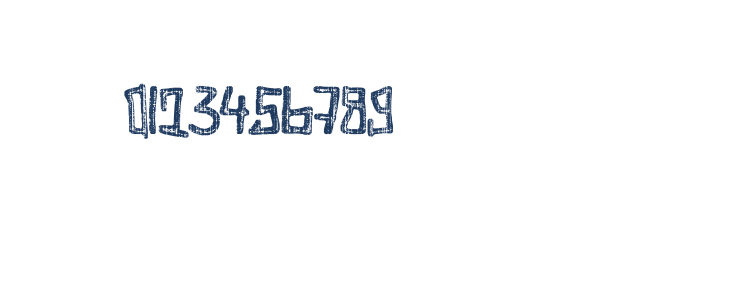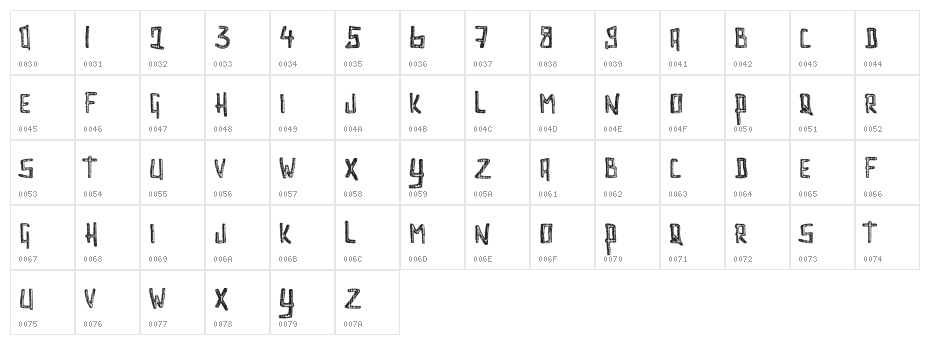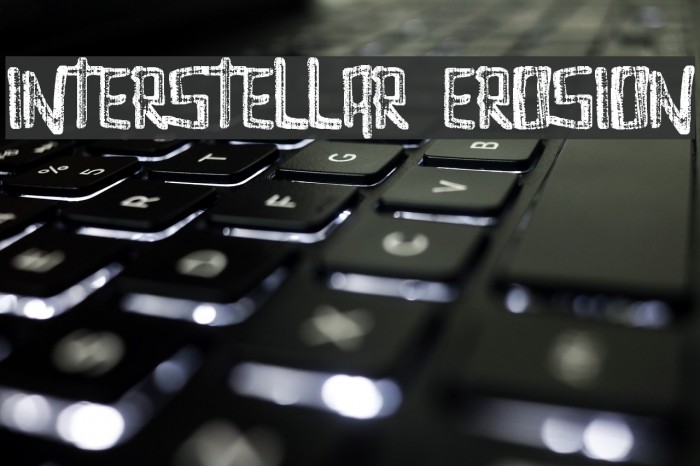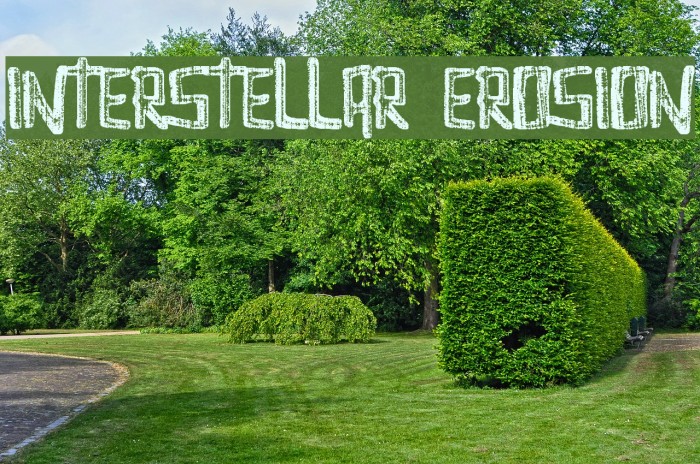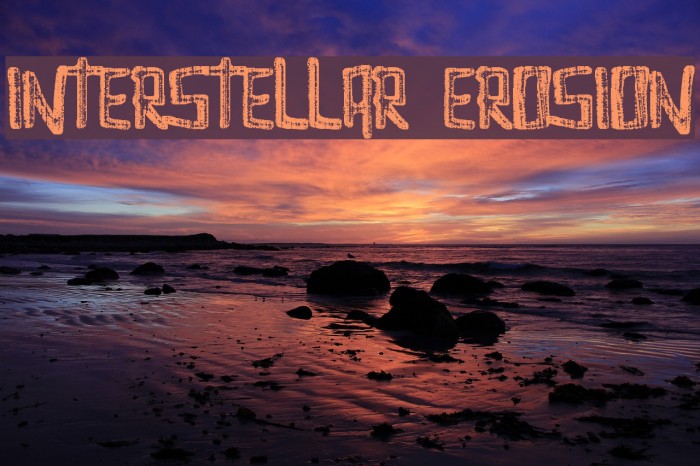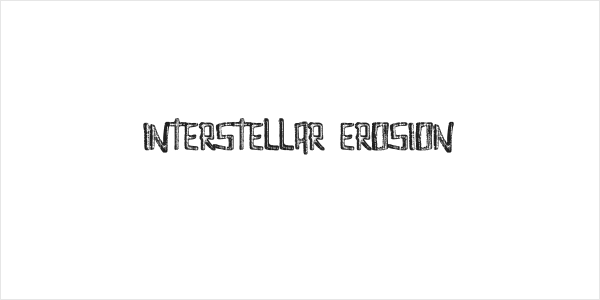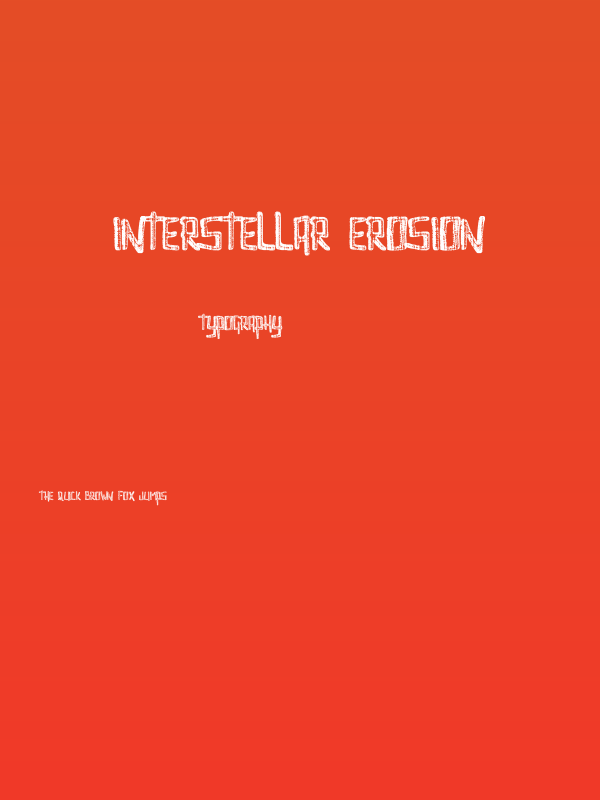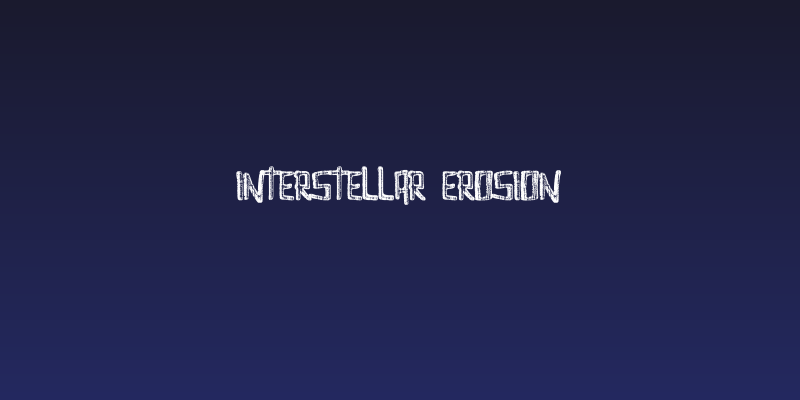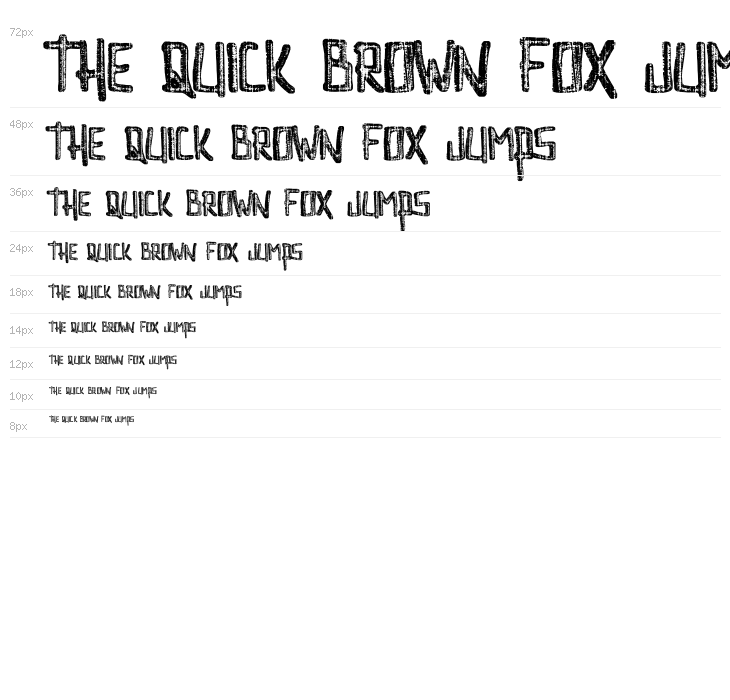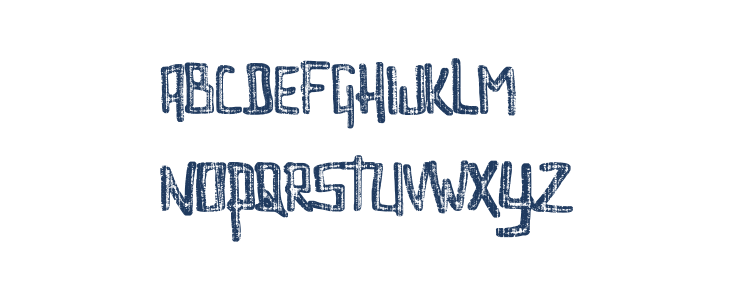
Interstellar Erosion Font
Interstellar Erosion Description
This font features a rugged, distressed appearance, reminiscent of eroded surfaces or weathered textures. The characters are bold and have a hand-drawn quality, with uneven edges and a textured fill that gives them a gritty, organic feel. The uppercase and lowercase letters maintain a consistent style, with a slightly condensed form that adds to the compactness of the design. The numbers and special characters follow the same aesthetic, ensuring uniformity across all glyphs. This font's unique style makes it stand out, offering a raw and edgy look that can add character to any project.
Proposed ProjectsIdeal for projects requiring a gritty, organic feel such as album covers, posters, or branding for outdoor or adventure-themed products.